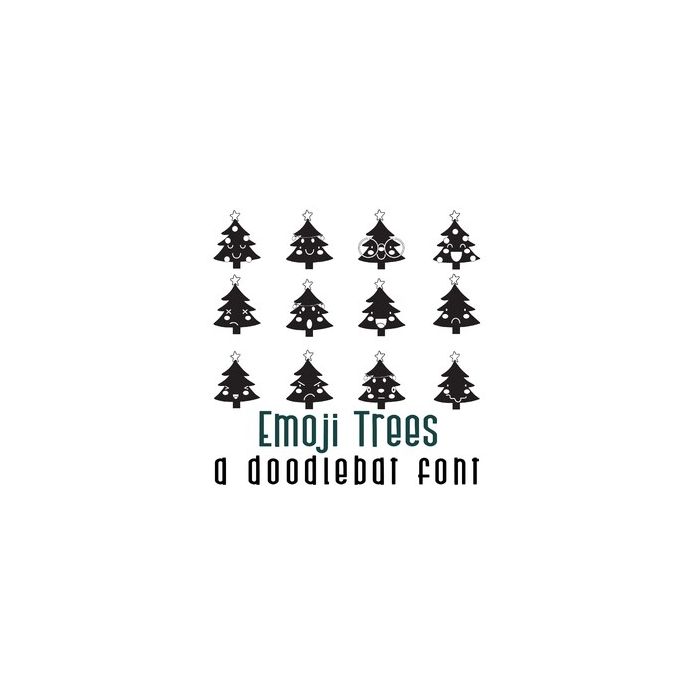
Emoji Trees Doodlebat Font
This fun doodlebat font features 26 Christmas tree emojis. Perfect for cards, gifts, decor, crafts, scrapbook pages, planner stickers and more!